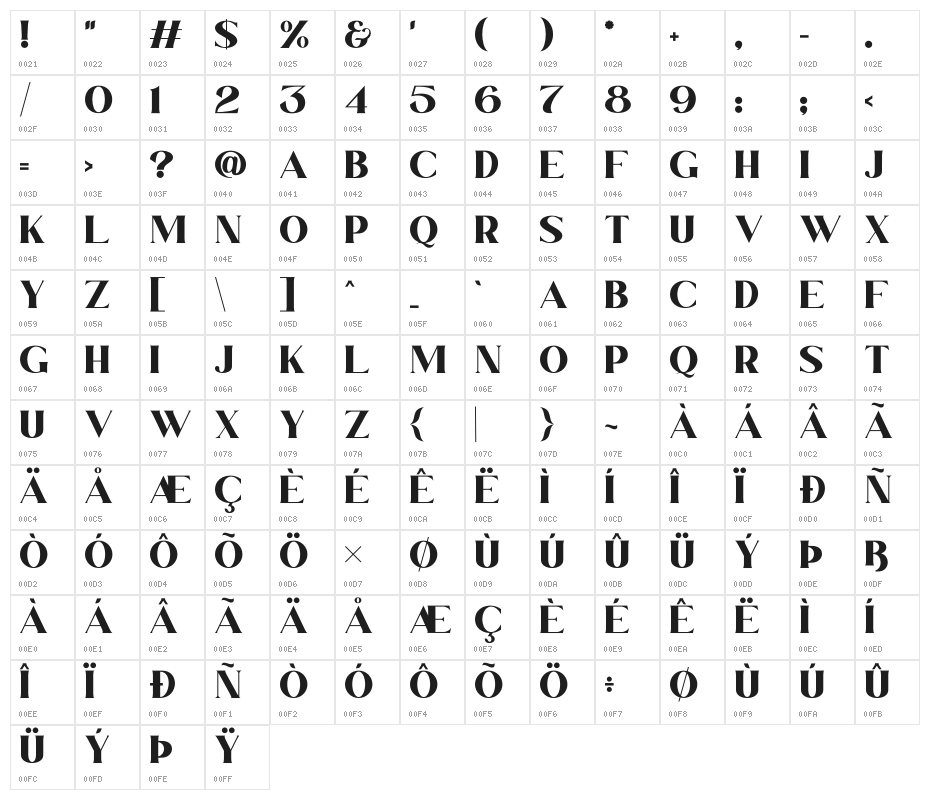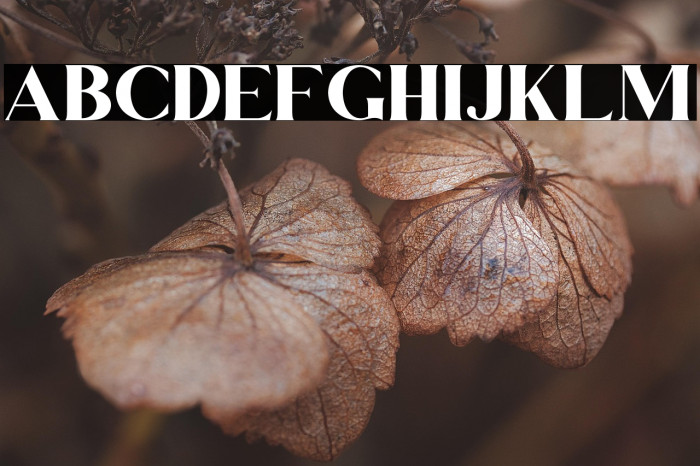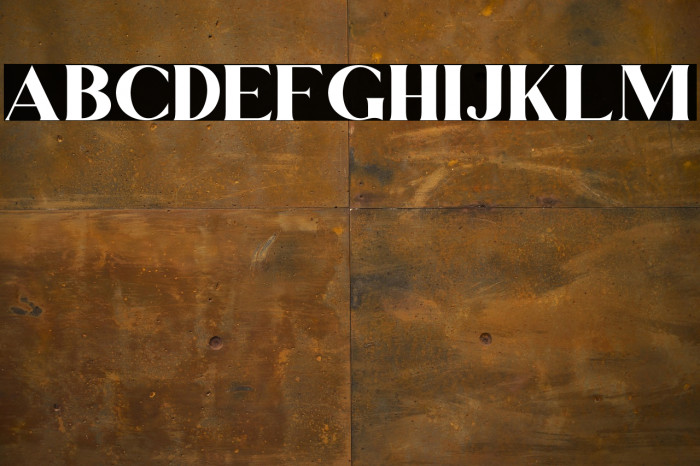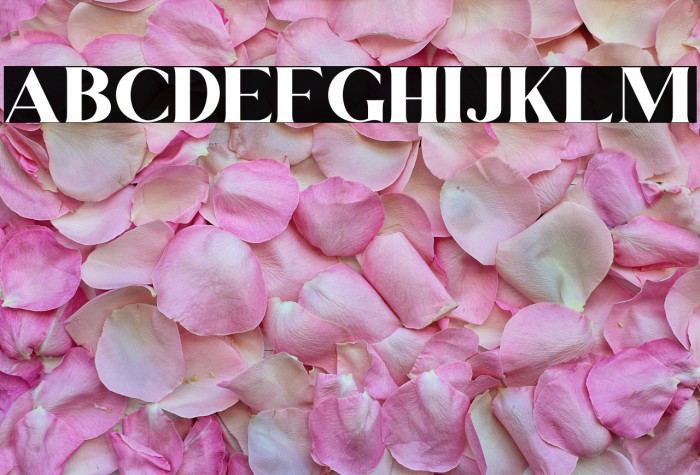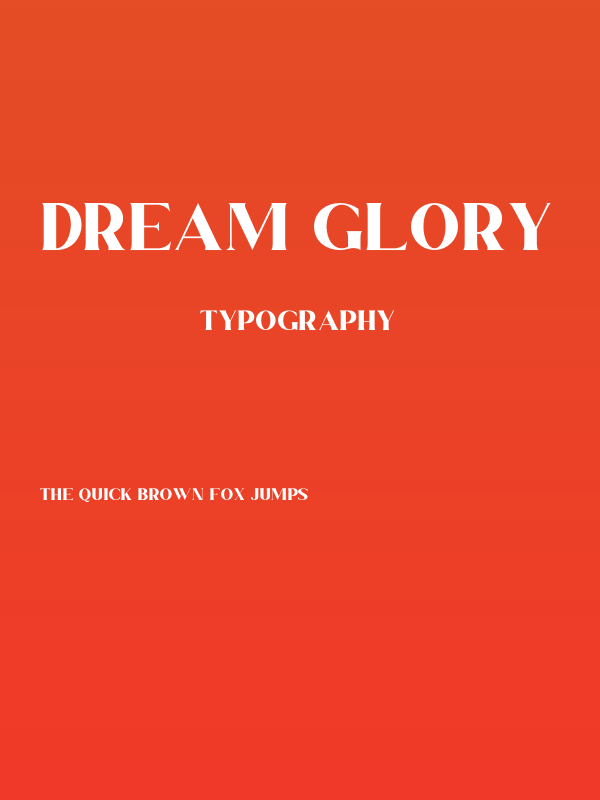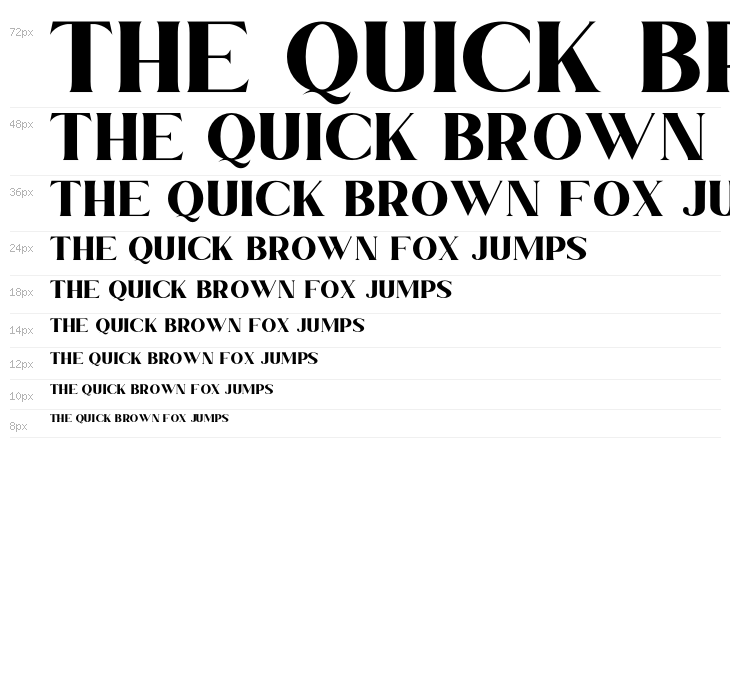
Dream Glory Font
Dream Glory Description
This font features a bold and striking design with high contrast between thick and thin strokes, giving it a dramatic and elegant appearance. The uppercase letters are particularly distinctive, with sharp serifs and a modern flair that adds a touch of sophistication. The numerals are equally bold, maintaining the high contrast and sharp edges seen in the letters. Special characters are designed with the same attention to detail, ensuring consistency throughout the typeface. The overall style is both classic and contemporary, making it versatile for various design applications.